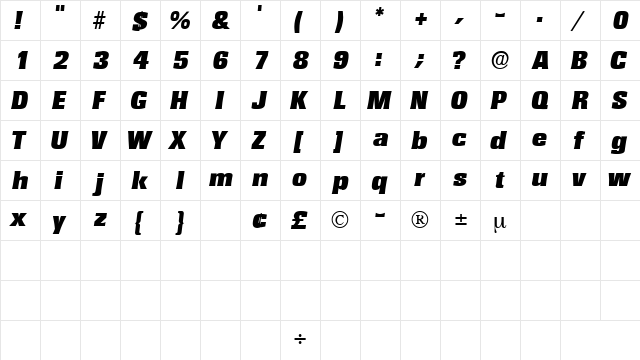
VariatDisplaySSK Italic
Design Context for VariatDisplaySSK Typeface
VariatDisplaySSK is built around its visual character rather than neutral utility — its distinctive forms are designed to make an impression at display sizes. The dynamic lean of this cut emphasises speed and emphasis in any layout.
Font Pairing: Pair with a clean neutral sans-serif for body copy to let VariatDisplaySSK's character lead without overwhelming the composition.
Pro Tip: Treat VariatDisplaySSK as the centrepiece of your typographic hierarchy. One strong heading set in a decorative face can carry an entire layout.